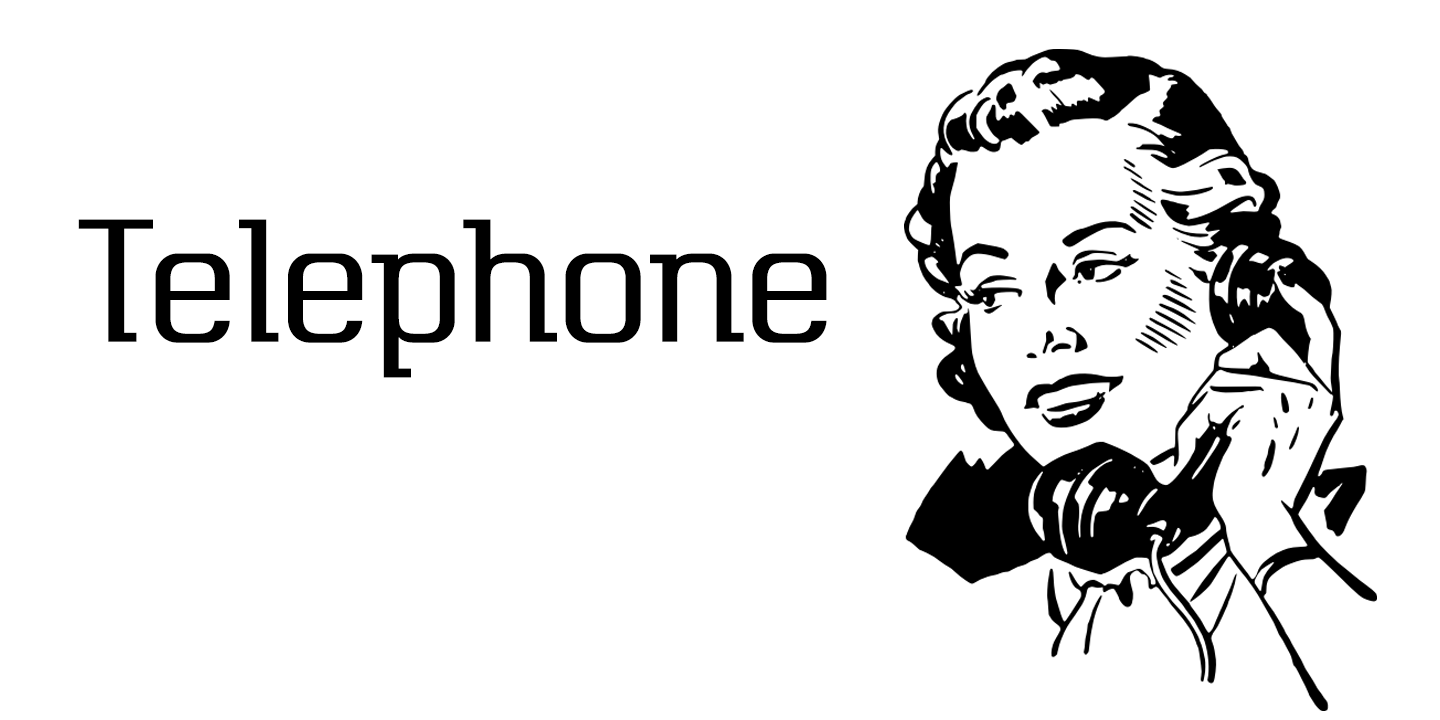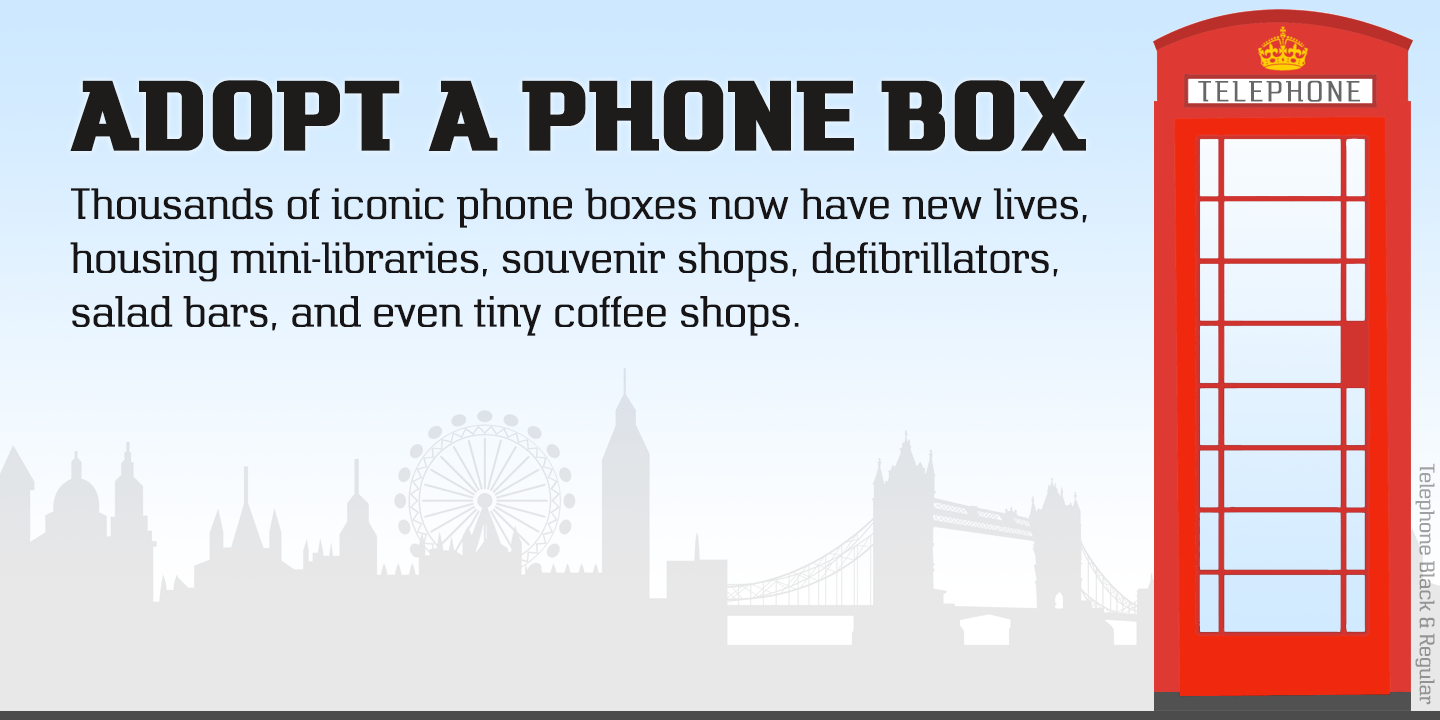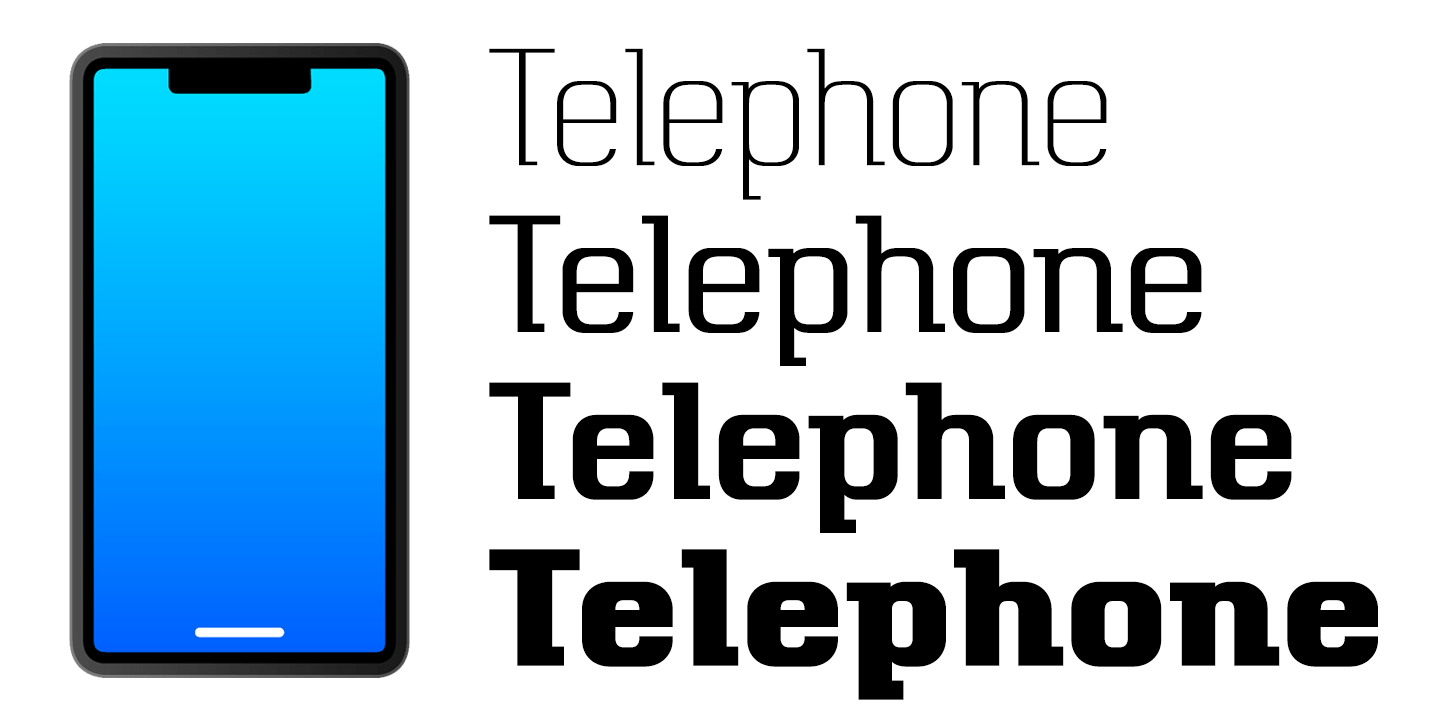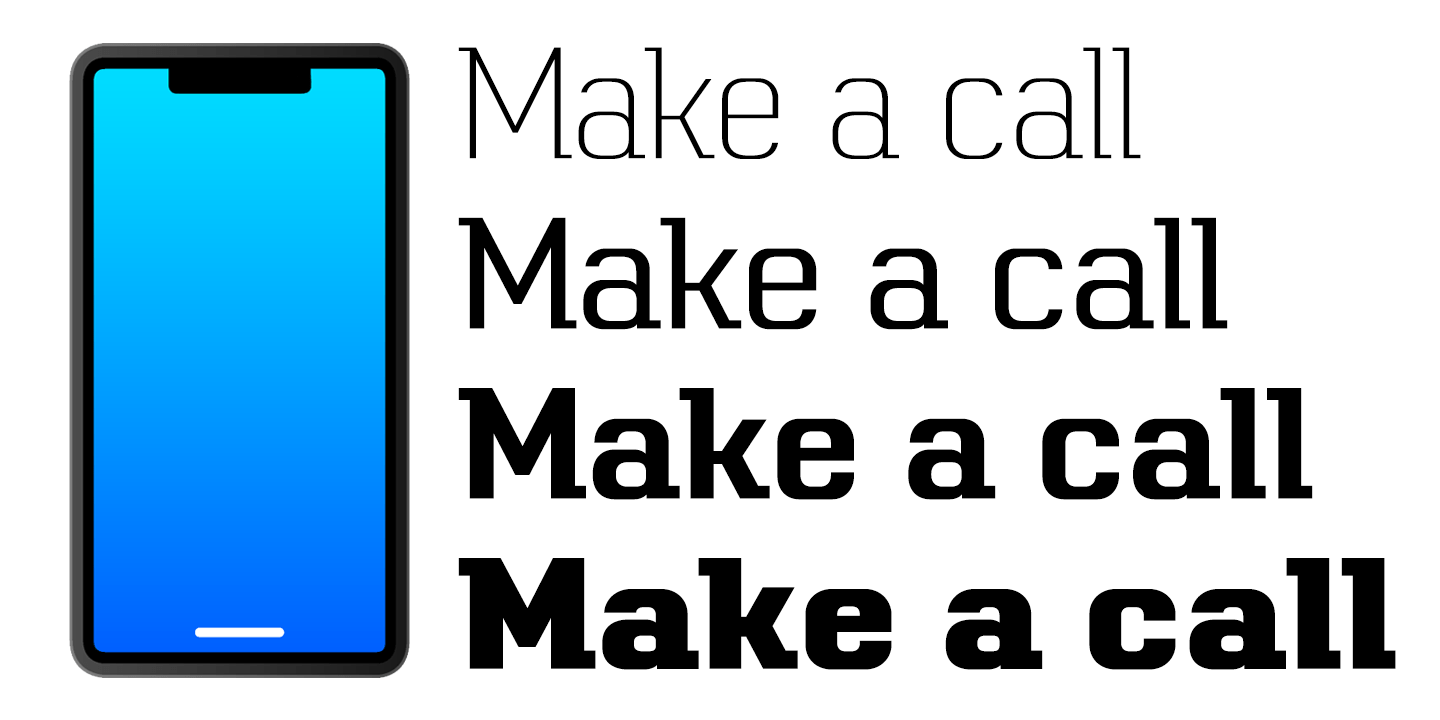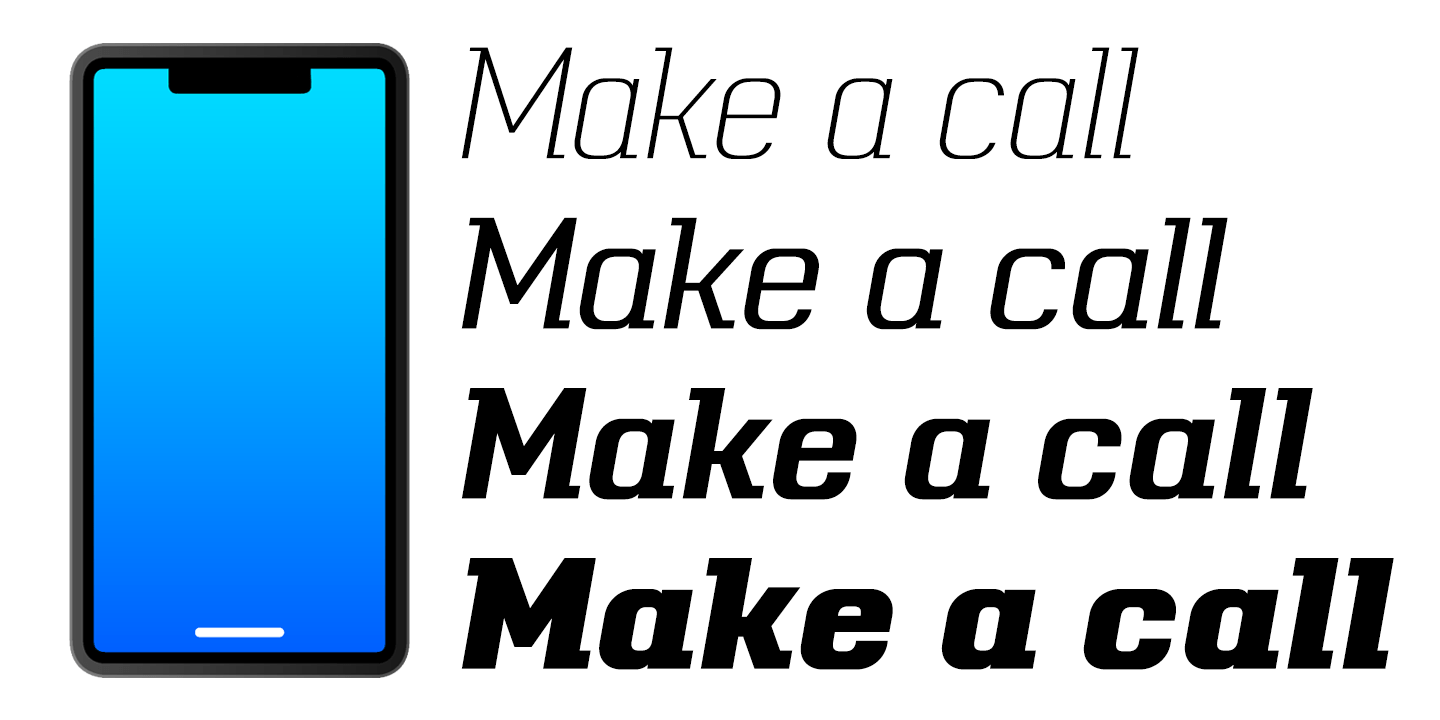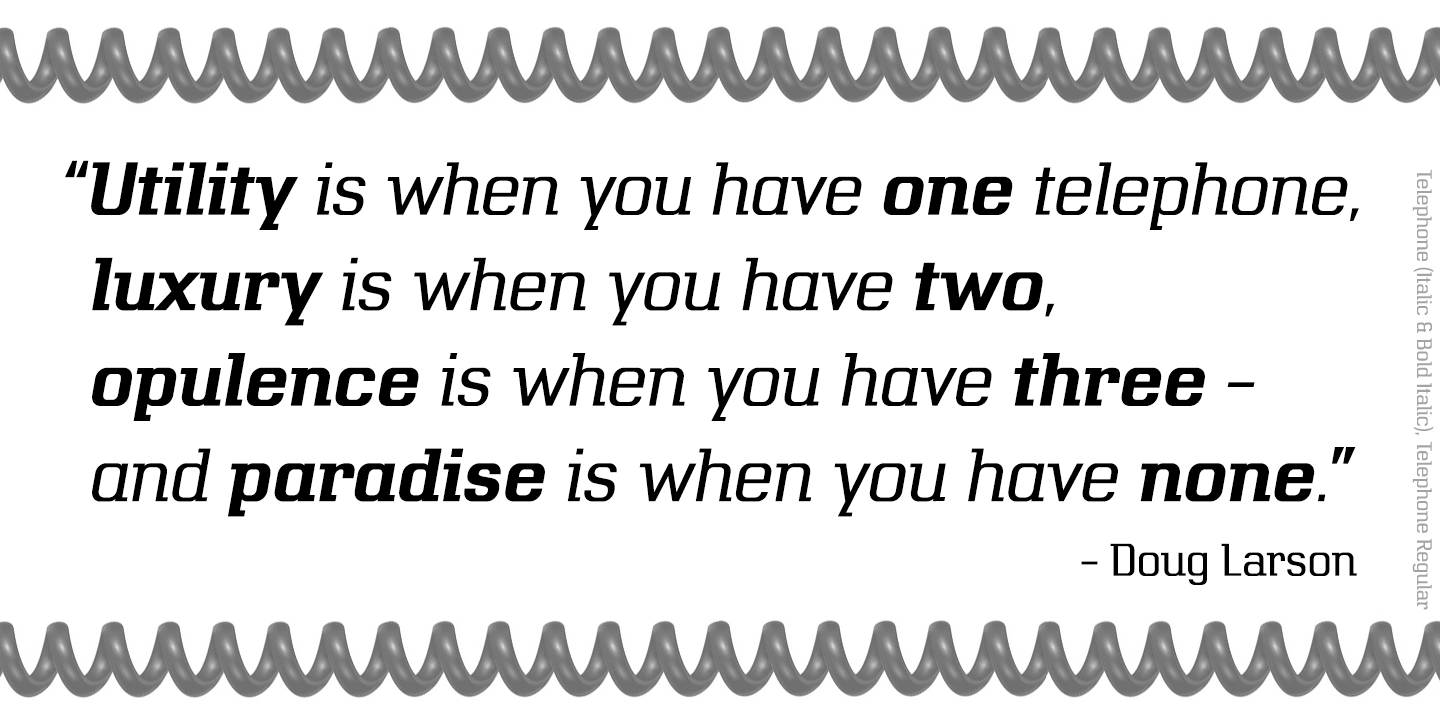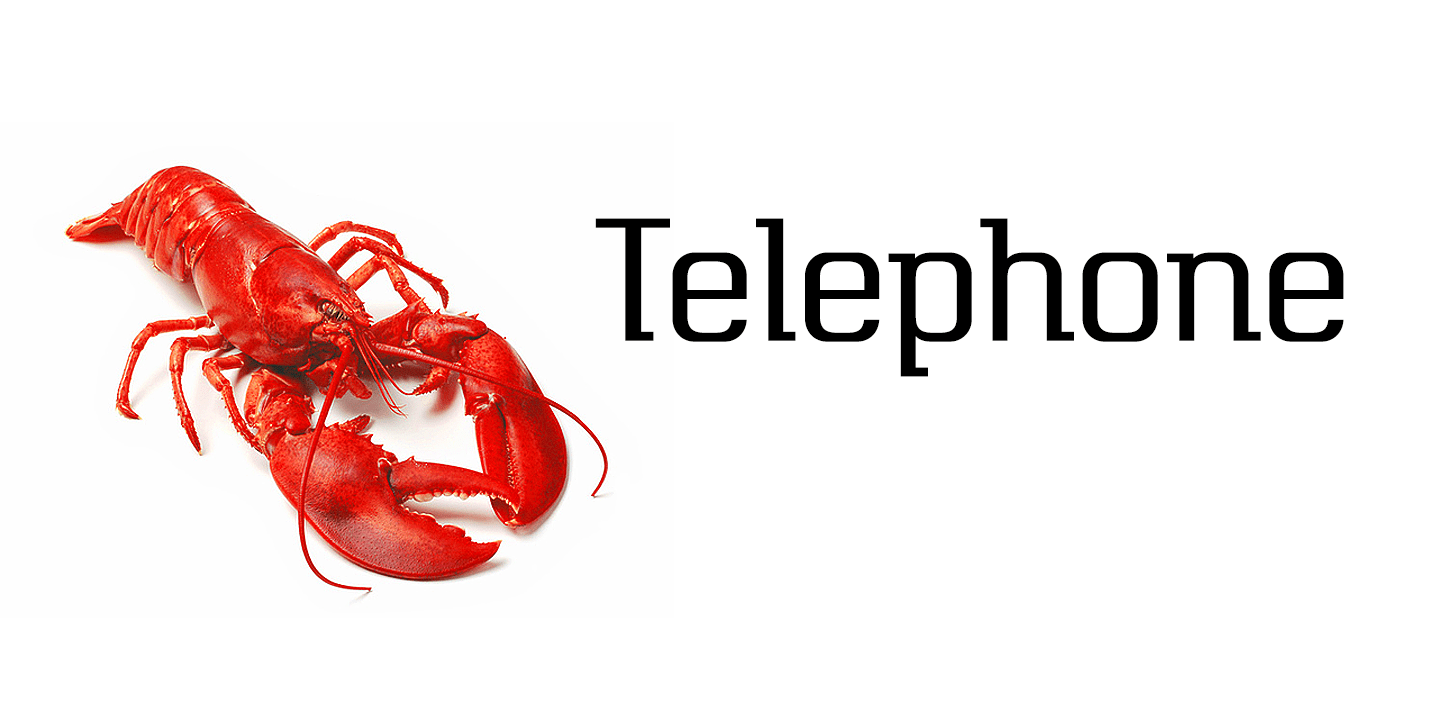
Telephone
Font Family by K-Type
Telephone is a geometric semi-slab family with block serifs positioned to assist wordflow.
The typeface evolved from an italic wordmark designed in 1966 for the British GPO by the Banks & Miles agency to publicize all-figure telephone dialling (all-number calling), and the new fonts retain that italic spirit, even in the upright romans. The squarish glyphs, with a mix of rounded and angular corners, have a post-modern feel suggesting technological advance, innovation and vitality.